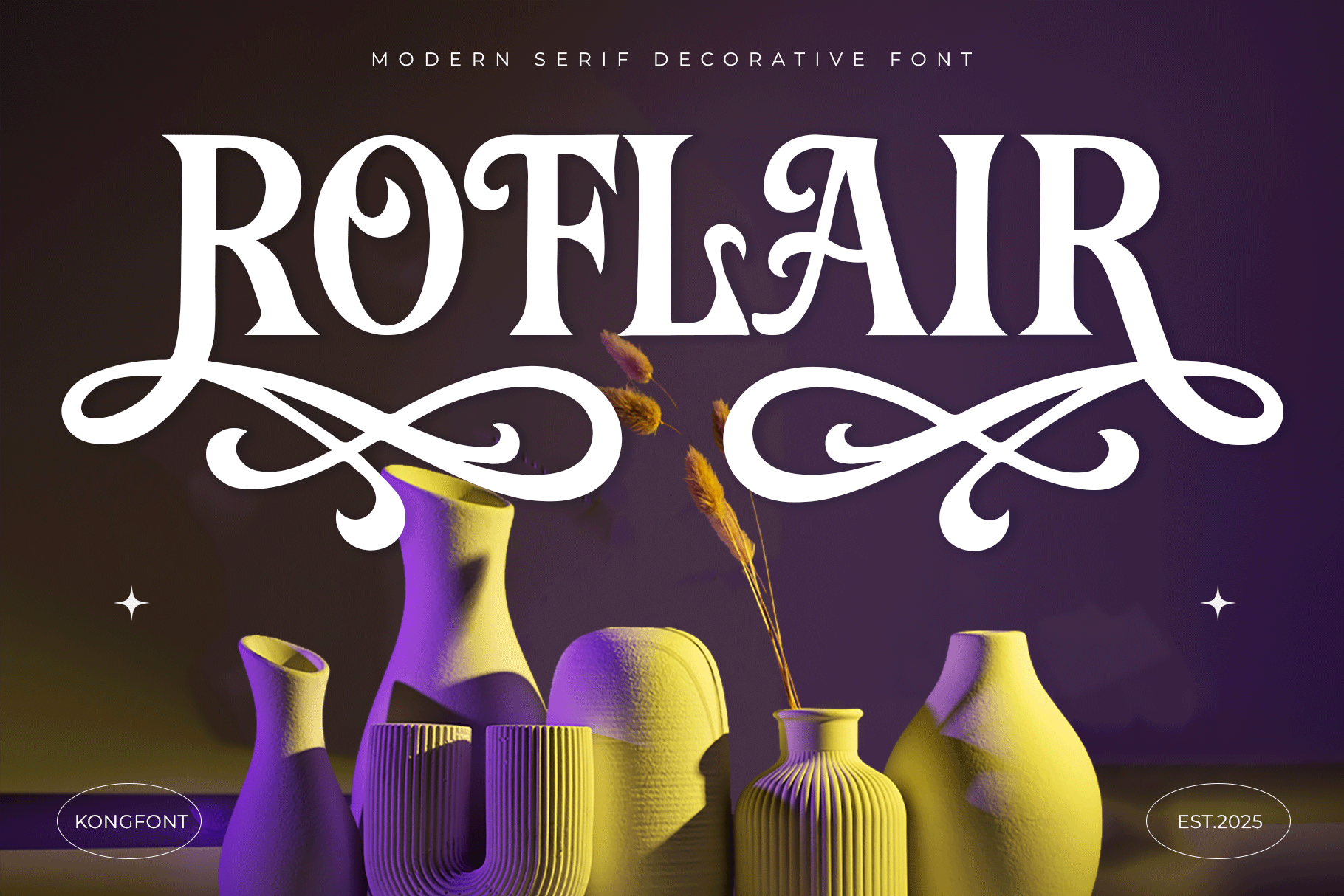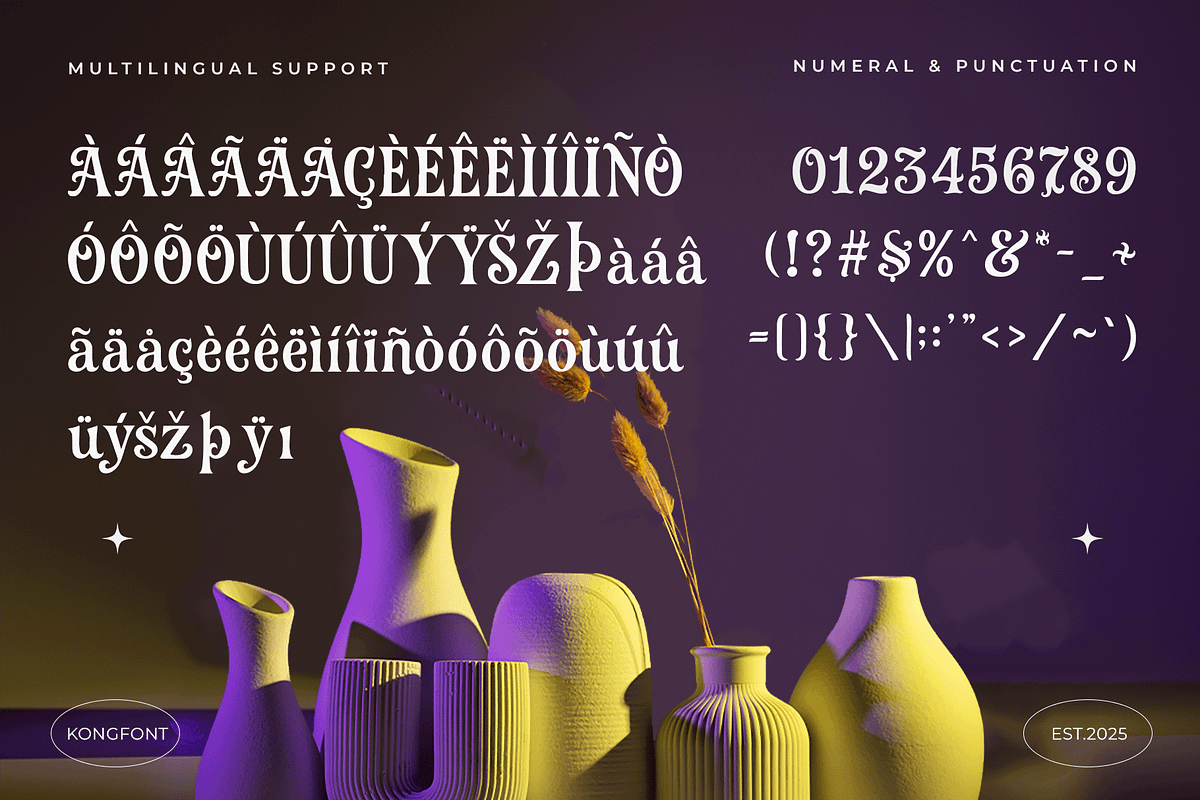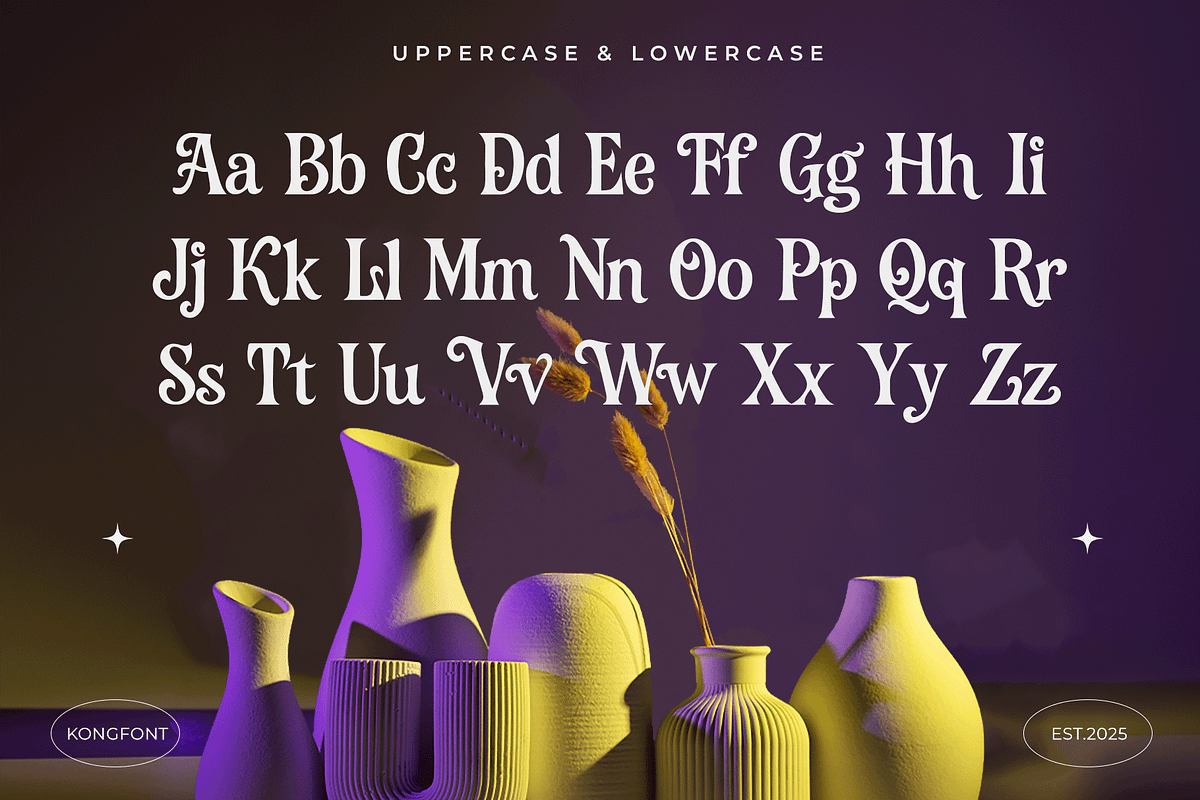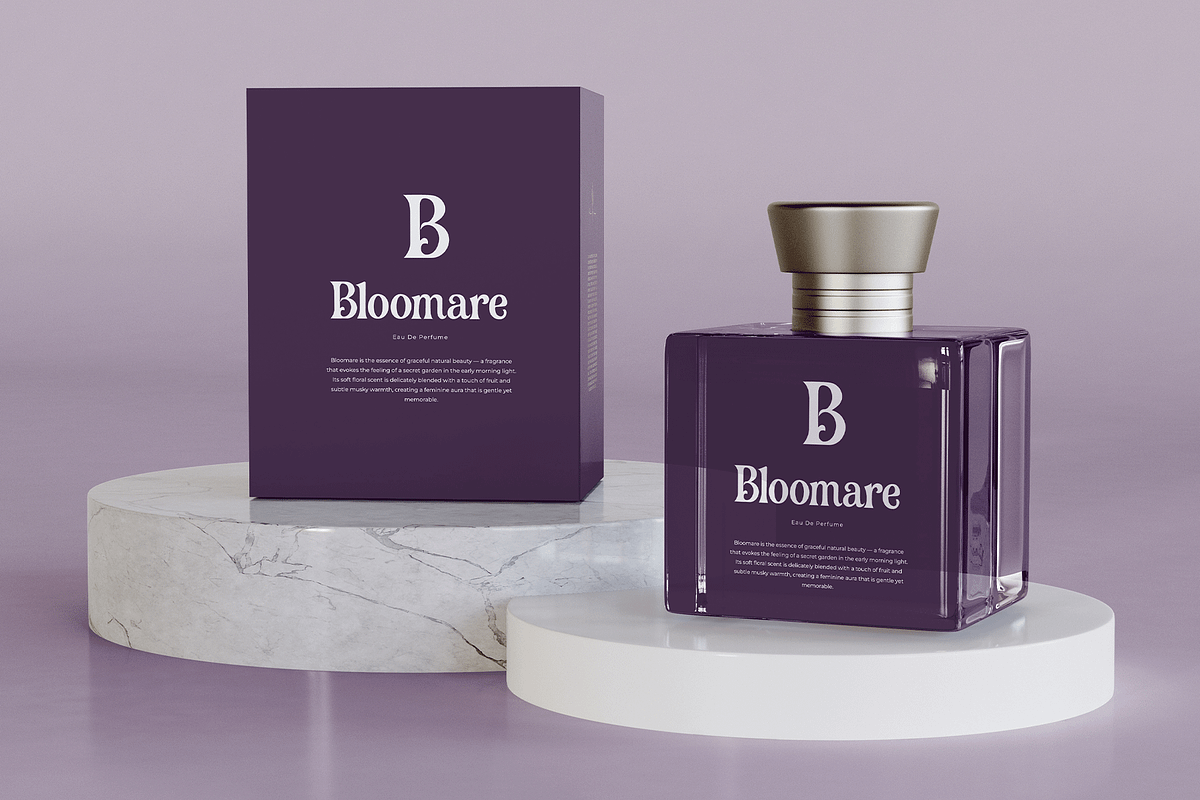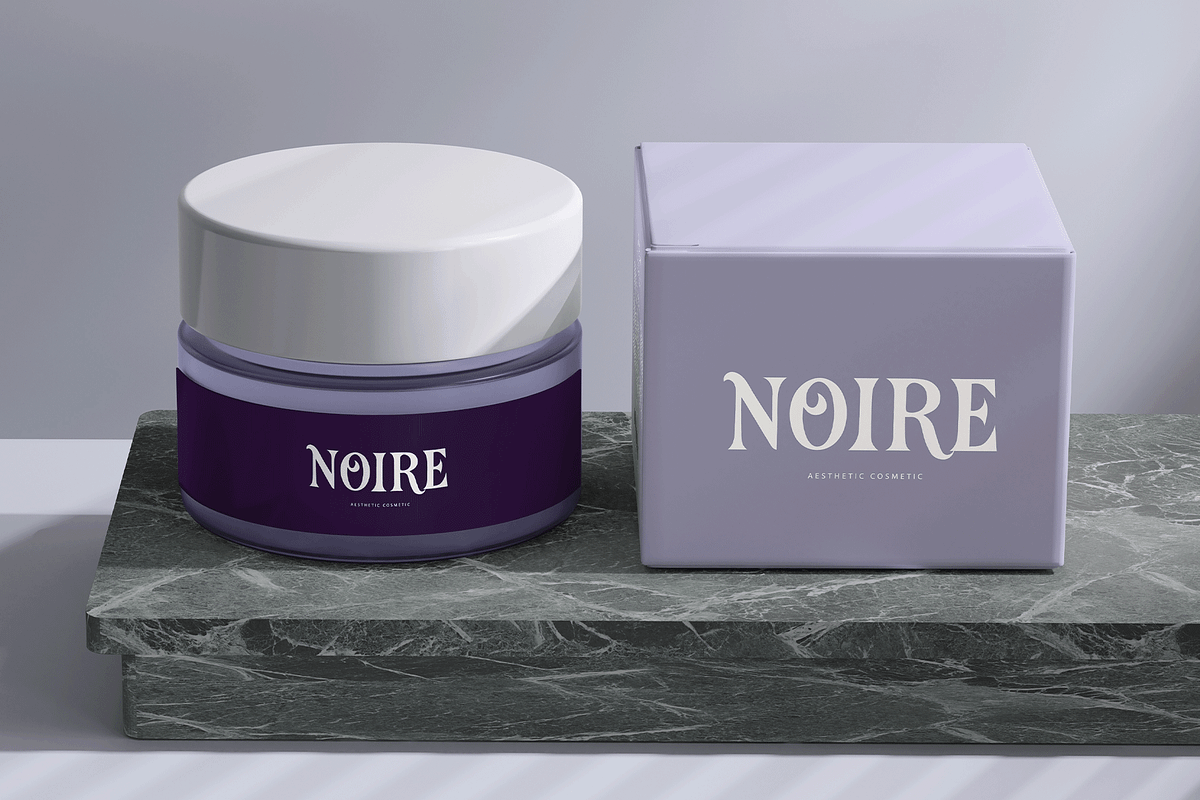
Roflair–Modern Decorative Serif Font
Roflair – Modern Decorative Serif Font
Roflair is a modern serif decorative font that combines classic sophistication with edgy, artistic detail. Designed to catch attention, each character is crafted with expressive flair—making it perfect for editorial headlines, logo design, branding, and fashion-related visuals.
This typeface balances elegance and creativity, delivering a unique personality that stands out without overpowering your message. Use Roflair when your design needs to be classy, confident, and just a little dramatic.